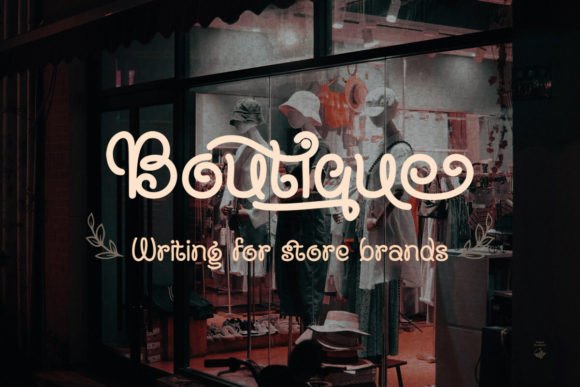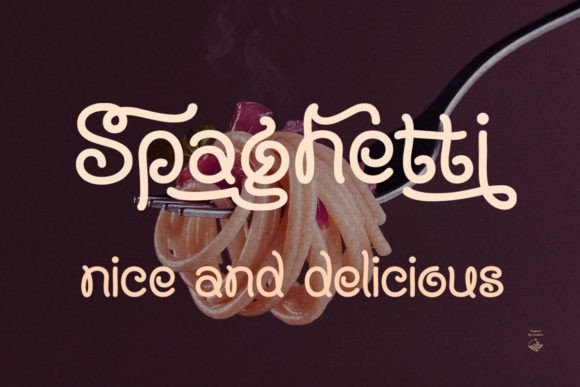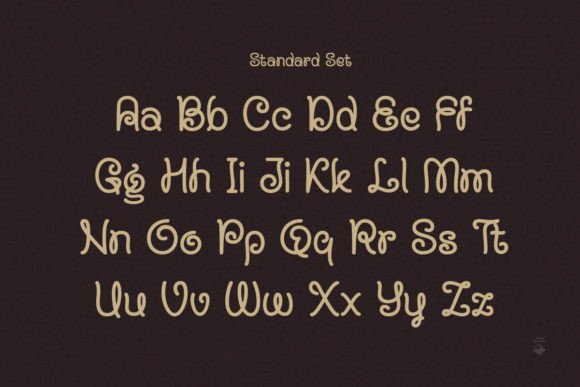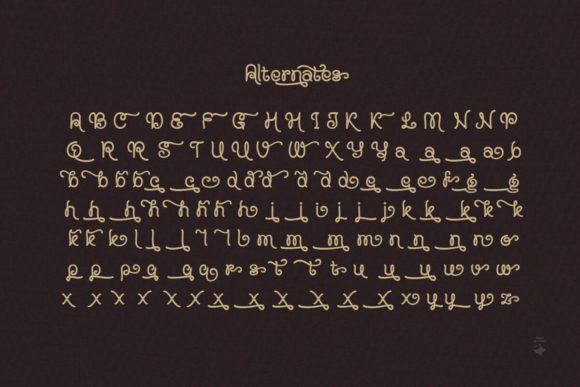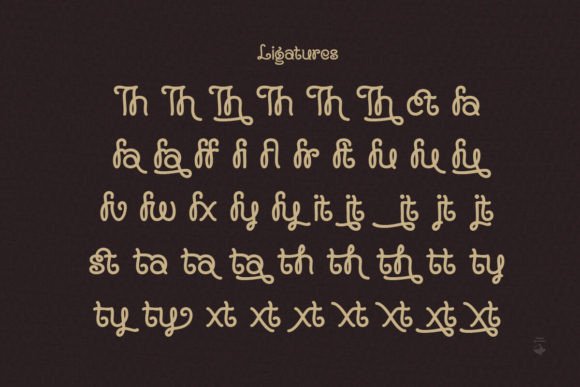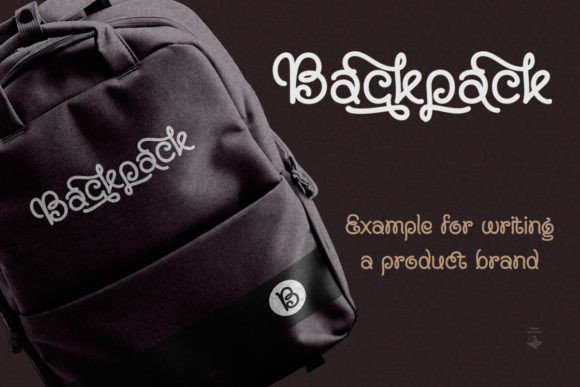
Unleash the Beauty in Your Designs
Have you ever been in a creative flow, pouring your heart and soul into a project, only to feel like something is missing? The perfect font can make all the difference. Imagine a font that effortlessly adds a touch of sophistication and elegance to your designs, elevating them from ordinary to extraordinary.
Meet Beauty House Font, a stunning modern style handwritten font that’s designed to make a lasting impression. With its intricate swirl structure and beautifully crafted character set, this font is the perfect addition to any creative project. Whether you’re working on branding, print media, or even comics, Beauty House Font is sure to bring your designs to life in a way that’s both luxurious and memorable.
As a designer, you know that the right font can be a game-changer. Beauty House Font is no exception, offering a unique and versatile tool that’s sure to give your projects an edge.
Beauty House Font Key Features
- Font Family: Beauty House Font is a premium font family that includes multiple styles, including Regular, Italic, Bold, and Bold Italic.
- Unique Characteristics: Beauty House Font features elegant and sophisticated letterforms, with a focus on clean lines, smooth curves, and refined details.
- Font Style: This font family is ideal for high-end branding, luxury packaging, and sophisticated advertising, offering a touch of elegance and sophistication to any design.
Beauty House Font Review
When I first saw the Beauty House Font, I was immediately drawn to its elegant and sophisticated aesthetic. ✨ The font’s curves and lines seem to dance together, creating a sense of luxury and refinement. It’s perfect for designers looking to create high-end branding materials, such as perfume or cosmetics packaging.
One of the strengths of the Beauty House Font is its versatility. ✨ It comes in a range of weights and styles, making it suitable for use in both display and body text. The font also supports a wide range of languages, including Latin, Cyrillic, and Greek.
- ⚠️ The Beauty House Font may be too ornate for some designers’ tastes. It’s a highly decorative font that may not be suitable for simple, clean designs.
- ⚠️ Some users may find the font’s lines and curves to be a bit too thin, which can make it difficult to read at smaller sizes.
Overall, I think the Beauty House Font is a great addition to any designer’s toolkit. While it may have some limitations, its unique aesthetic and versatility make it a great choice for designers looking to create high-end, luxury branding materials.
The Beauty House Font is ideal for:
- Beauty and wellness branding.
- Fashion and lifestyle marketing.